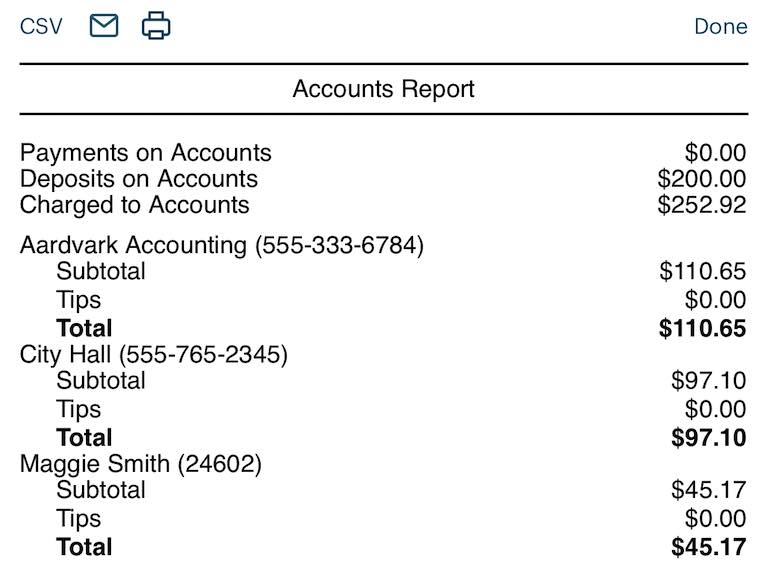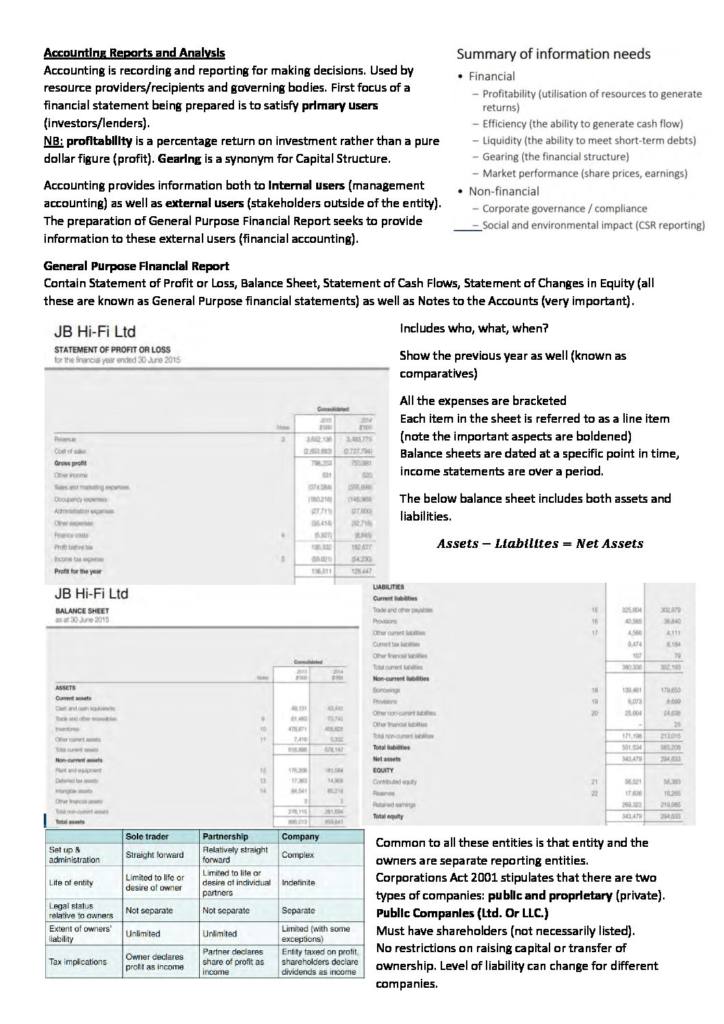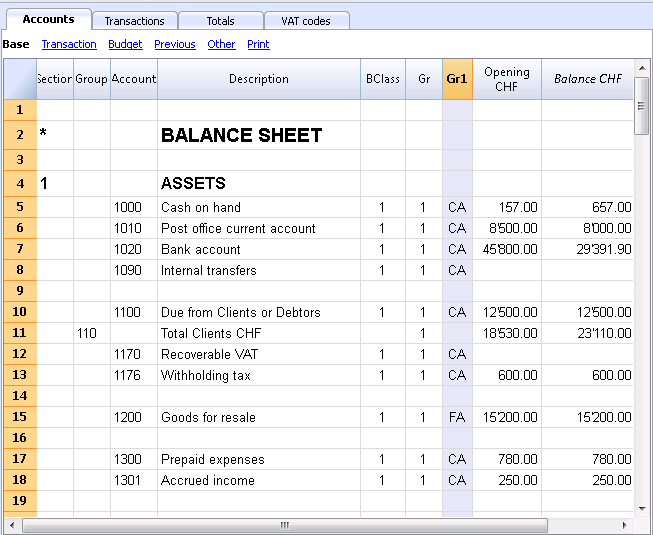
What Is The Best Font For Accounting Reports . choosing the right font can improve your data’s readability and visual appearance. And one of the most. In this article, we will explore the five best fonts for excel that will. today, calibri is the hot new font that may be the best one to use in excel, outlook, and word for the following reasons: the best font for reports is one that is easy to read, clear, and professional. sans serif fonts (like arial) are easier to read from a monitor or from a distance and are generally easier to read for dyslexic people. Some of the most popular fonts for reports include times. there are a couple of spectacular typefaces that are to be used across banking, asset management and insurance.
sans serif fonts (like arial) are easier to read from a monitor or from a distance and are generally easier to read for dyslexic people. And one of the most. the best font for reports is one that is easy to read, clear, and professional. there are a couple of spectacular typefaces that are to be used across banking, asset management and insurance. In this article, we will explore the five best fonts for excel that will. choosing the right font can improve your data’s readability and visual appearance. today, calibri is the hot new font that may be the best one to use in excel, outlook, and word for the following reasons: Some of the most popular fonts for reports include times.
What Is The Best Font For Accounting Reports sans serif fonts (like arial) are easier to read from a monitor or from a distance and are generally easier to read for dyslexic people. today, calibri is the hot new font that may be the best one to use in excel, outlook, and word for the following reasons: sans serif fonts (like arial) are easier to read from a monitor or from a distance and are generally easier to read for dyslexic people. choosing the right font can improve your data’s readability and visual appearance. And one of the most. In this article, we will explore the five best fonts for excel that will. there are a couple of spectacular typefaces that are to be used across banking, asset management and insurance. Some of the most popular fonts for reports include times. the best font for reports is one that is easy to read, clear, and professional.
How Do I Generate Accounting Reports? What Is The Best Font For Accounting Reports the best font for reports is one that is easy to read, clear, and professional. sans serif fonts (like arial) are easier to read from a monitor or from a distance and are generally easier to read for dyslexic people. And one of the most. there are a couple of spectacular typefaces that are to be used. What Is The Best Font For Accounting Reports.
The Top 5 Most Important Accounting Reports For Your Small Business What Is The Best Font For Accounting Reports sans serif fonts (like arial) are easier to read from a monitor or from a distance and are generally easier to read for dyslexic people. In this article, we will explore the five best fonts for excel that will. Some of the most popular fonts for reports include times. today, calibri is the hot new font that may. What Is The Best Font For Accounting Reports.
Accounting typography calligraphy word art Vector Image What Is The Best Font For Accounting Reports choosing the right font can improve your data’s readability and visual appearance. In this article, we will explore the five best fonts for excel that will. sans serif fonts (like arial) are easier to read from a monitor or from a distance and are generally easier to read for dyslexic people. And one of the most. Some of. What Is The Best Font For Accounting Reports.
Best Fonts for Financial Reporting Inforiver What Is The Best Font For Accounting Reports there are a couple of spectacular typefaces that are to be used across banking, asset management and insurance. In this article, we will explore the five best fonts for excel that will. And one of the most. choosing the right font can improve your data’s readability and visual appearance. sans serif fonts (like arial) are easier to. What Is The Best Font For Accounting Reports.
Best Fonts for Legal Documents What Is The Best Font For Accounting Reports the best font for reports is one that is easy to read, clear, and professional. And one of the most. today, calibri is the hot new font that may be the best one to use in excel, outlook, and word for the following reasons: there are a couple of spectacular typefaces that are to be used across. What Is The Best Font For Accounting Reports.
best font for research papers What Is The Best Font For Accounting Reports choosing the right font can improve your data’s readability and visual appearance. Some of the most popular fonts for reports include times. there are a couple of spectacular typefaces that are to be used across banking, asset management and insurance. In this article, we will explore the five best fonts for excel that will. today, calibri is. What Is The Best Font For Accounting Reports.
Formatting Best Practices for Financial Statements What Is The Best Font For Accounting Reports And one of the most. choosing the right font can improve your data’s readability and visual appearance. sans serif fonts (like arial) are easier to read from a monitor or from a distance and are generally easier to read for dyslexic people. there are a couple of spectacular typefaces that are to be used across banking, asset. What Is The Best Font For Accounting Reports.
Mis Reports for accounts receivable Accounts receivable, Accounting What Is The Best Font For Accounting Reports the best font for reports is one that is easy to read, clear, and professional. In this article, we will explore the five best fonts for excel that will. sans serif fonts (like arial) are easier to read from a monitor or from a distance and are generally easier to read for dyslexic people. there are a. What Is The Best Font For Accounting Reports.
Top 5 Accounting Reports For Small Businesses hammerjack What Is The Best Font For Accounting Reports And one of the most. Some of the most popular fonts for reports include times. choosing the right font can improve your data’s readability and visual appearance. the best font for reports is one that is easy to read, clear, and professional. sans serif fonts (like arial) are easier to read from a monitor or from a. What Is The Best Font For Accounting Reports.